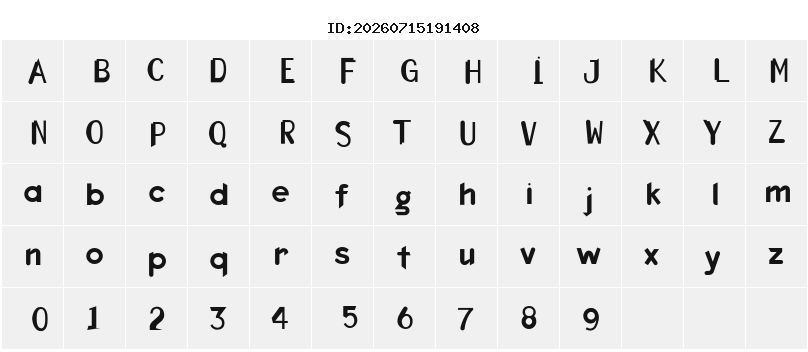
Awkward Preview
• Font Name: Awkward
• Font Style: Roman
• Full Font Name: Awkward
About Awkward.ttf
Awkward.ttf is a modern, elegant sans-serif font designed for ultimate readability and visual harmony. Perfect for branding, headlines, web design, and print materials.